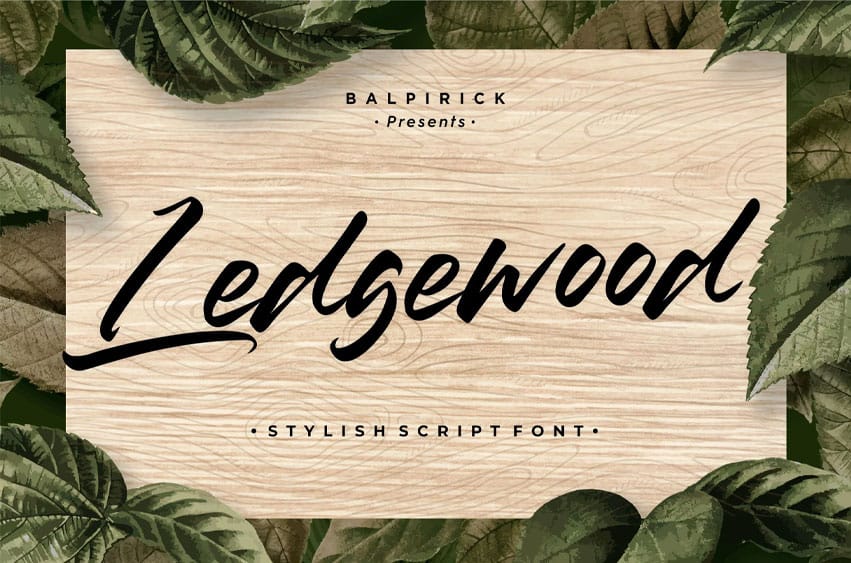
Ladgewood Font is a Stylish Script Font. Ledgewood is perfect for product packaging, branding projects, magazines, social media, weddings, or just used to express words above the background.